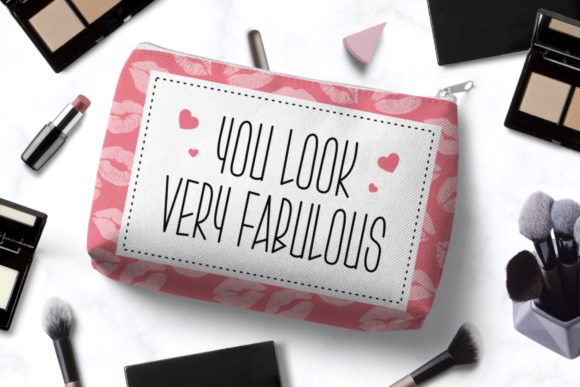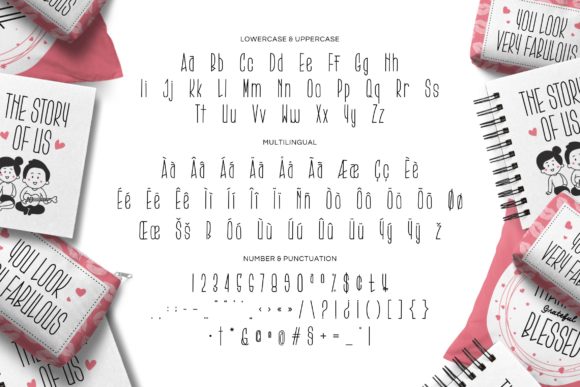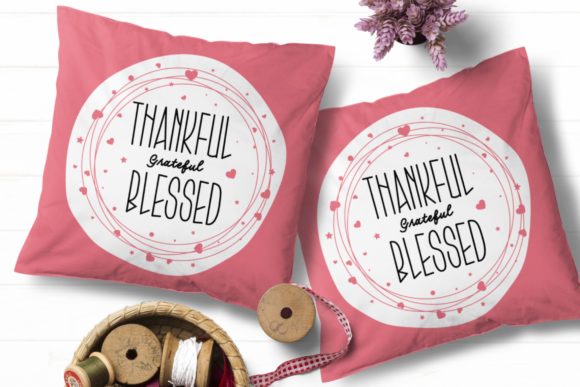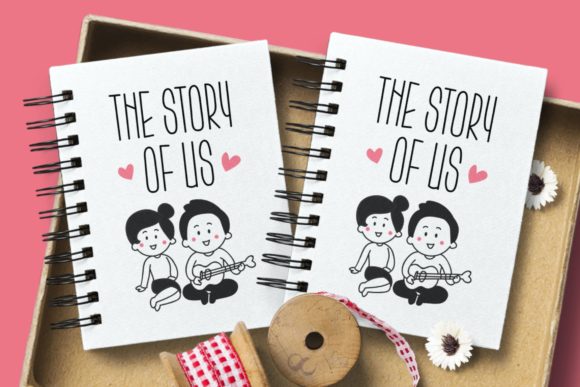
Introduction to Longlive Font
You’re in the midst of a creative project, and you’re struggling to find the perfect font to bring your vision to life. You’ve tried countless options, but nothing seems to capture the essence of your design. This is where the Longlive Font comes in – a game-changing display font that’s sure to elevate your creation to the next level.
With its sleek, thin lines and unique aesthetic, the Longlive Font is a valuable addition to any designer’s library. Whether you’re working on a high-quality brochure, a website, or a social media campaign, this font is sure to make a lasting impression. Plus, with its transparent background, you can easily overlay it on top of your design, giving you complete creative control.
Key Features of Longlive Font
- High-quality design resource suitable for various creative projects
- Unique, modern design with a wide range of applications in graphic design and digital art
- Perfect for designers seeking a professional, elegant font for their projects
Honest Review: Longlive Font
As a designer, I’m always on the lookout for high-quality fonts to enhance my creative projects. Recently, I stumbled upon the Longlive Font, and I’m excited to share my honest review with you.
- Unique and modern design aesthetic that’s perfect for contemporary projects
- Transparent background, allowing for easy layering and compositing
- High-quality typography that’s crisp and clear, even at large sizes
- Only available in a single weight, which may limit its versatility in certain projects
- No bold or italic variants, which may not be suitable for projects that require emphasis
Overall, I’m impressed with the Longlive Font. Its modern design aesthetic and high-quality typography make it a great addition to any design project. While it may have some limitations, I believe it’s a solid choice for designers looking for a free and reliable font resource.
Tips for Getting the Most Out of Longlive Font
Use the Longlive Font to create a cohesive design for your project.
Combine the Longlive Font with other design elements, such as images and shapes, to create a visually appealing design.
The Longlive Font is suitable for a wide range of creative projects, including:
Marketing materials, such as brochures and flyers.
Branding materials, such as logos and business cards.
Web design projects, such as websites and landing pages.